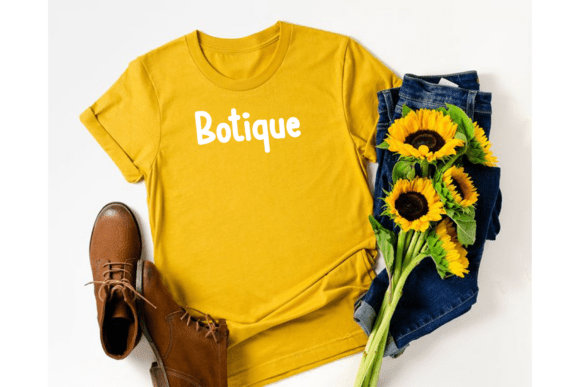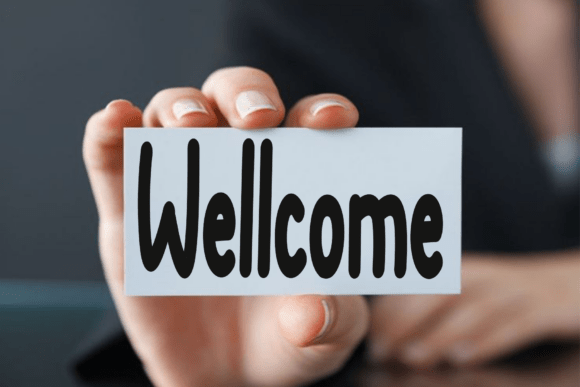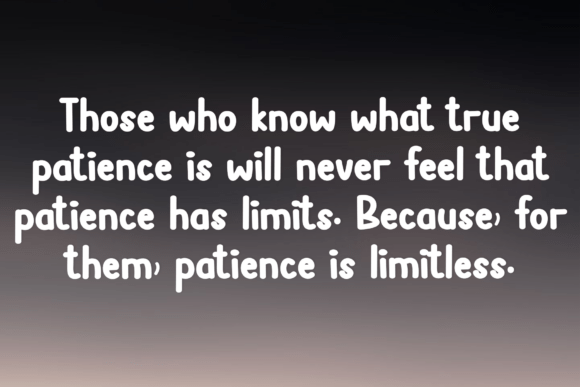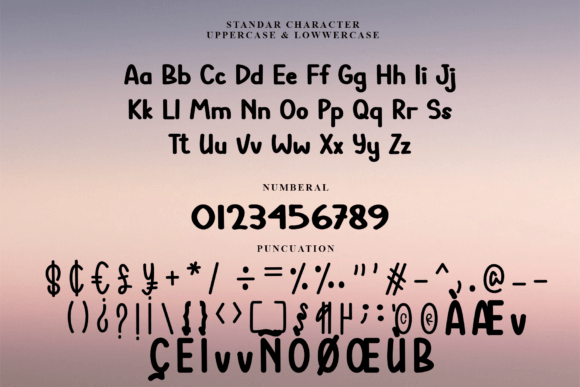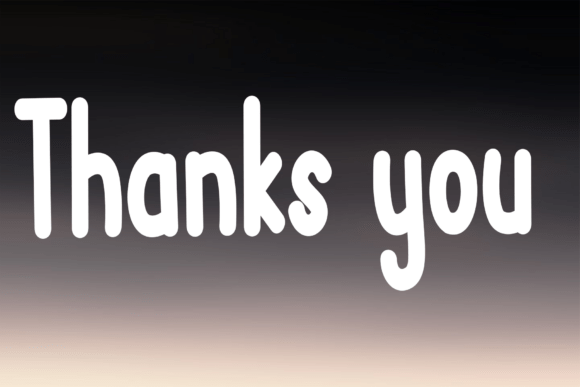
Elevate Your Design with Gradient Font: The Epitome of Modern Minimalism
In the realm of typography, few fonts manage to strike a balance between modern sophistication and approachable elegance. Gradient Font, with its sleek, monolinear handwritten style, is a shining example of modern minimalism. This versatile typeface is designed to bring a touch of professionalism and refinement to any design project, making it an excellent choice for designers and crafters looking to elevate their work.
The Characteristics of Gradient Font
Gradient Font, classified as a Black Home typeface, features tall, slender characters with soft curves that exude a sense of elegance and refinement. The font’s monolinear construction gives it a sleek, modern appearance that feels both professional and approachable. The airy and clean nature of Gradient Font ensures that it doesn’t overwhelm your layout, making it perfect for a variety of design applications.
Design Applications for Gradient Font
Gradient Font is an incredibly versatile typeface that can be used in a wide range of design projects. Some of the most popular applications for this font include:
- Interior Design Branding: Gradient Font’s sleek, modern aesthetic makes it an excellent choice for interior design branding, allowing designers to create a sophisticated and refined visual identity for their clients.
- Real Estate Logos: The font’s professional and approachable feel makes it well-suited for real estate logos, helping to establish trust and credibility with potential clients.
- Contemporary Lifestyle Magazines: Gradient Font’s elegant and refined appearance makes it a great choice for contemporary lifestyle magazines, adding a touch of sophistication to any editorial design.
- Product Packaging: The font’s clean and airy nature makes it perfect for product packaging, allowing designers to create a visually appealing and professional-looking design.
- Signature-Style Watermarks: Gradient Font’s elegant appearance makes it an excellent choice for signature-style watermarks, adding a touch of sophistication to any photograph or design.
- Elegant Website Overlays: The font’s sleek and modern aesthetic makes it well-suited for elegant website overlays, helping to create a visually appealing and professional-looking design.
Pairing Gradient Font with Other Typefaces
One of the key benefits of Gradient Font is its versatility and ability to pair well with other typefaces. For a dynamic contrast, try pairing Gradient Font with a bold sans-serif font. This combination creates a visually appealing and professional-looking design that is sure to elevate any project.
Why Choose Gradient Font?
So why choose Gradient Font for your next design project? Here are just a few reasons:
- Unique and Professional: Gradient Font offers a unique and professional aesthetic that is sure to elevate any design project.
- Versatile: The font’s versatility makes it suitable for a wide range of design applications, from interior design branding to product packaging.
- Elegant and Refined: Gradient Font’s elegant and refined appearance makes it perfect for designers and crafters looking to add a touch of sophistication to their work.
- Easy to Read: The font’s clean and airy nature makes it easy to read, even at smaller sizes.
In conclusion, Gradient Font is a versatile and elegant typeface that is perfect for designers and crafters looking to elevate their work. With its sleek, monolinear handwritten style and airy and clean nature, Gradient Font is an excellent choice for a wide range of design applications. Whether you’re working on interior design branding, real estate logos, or contemporary lifestyle magazines, Gradient Font is sure to bring a touch of sophistication and refinement to your design.